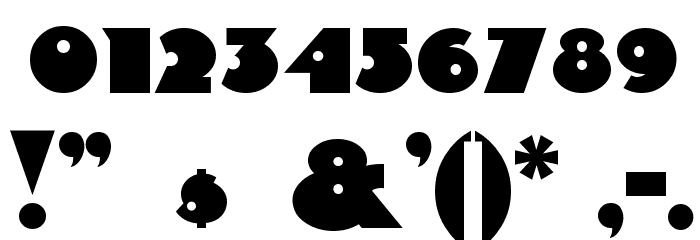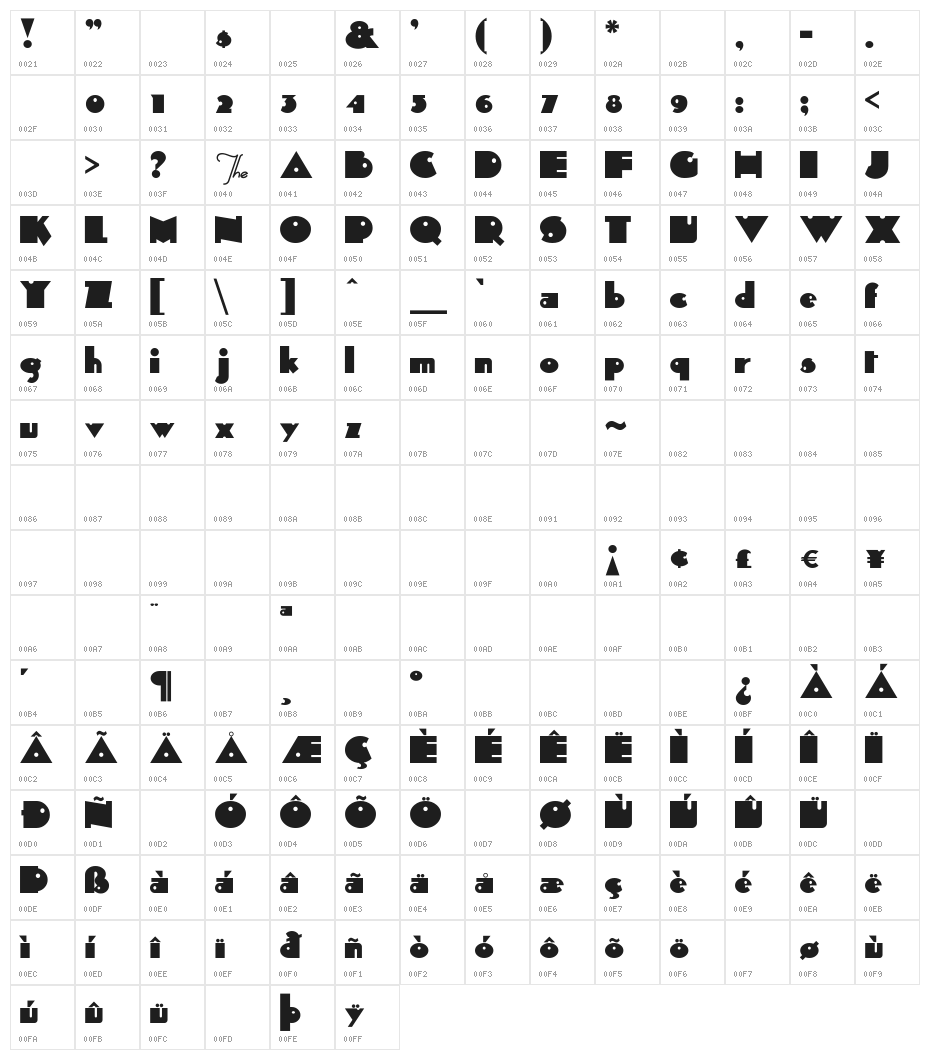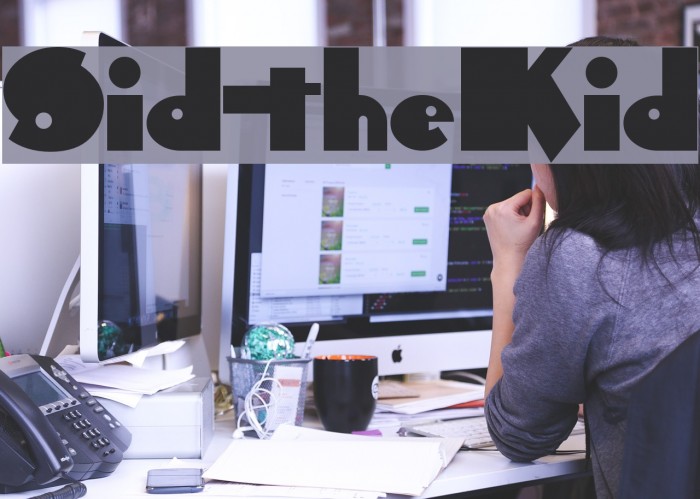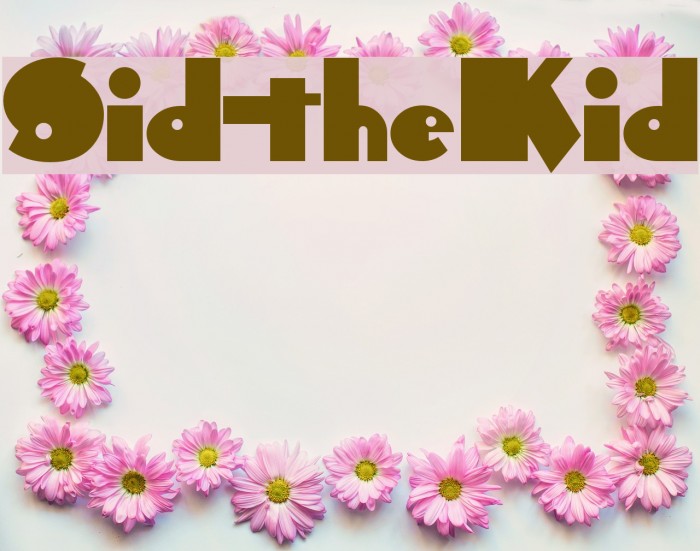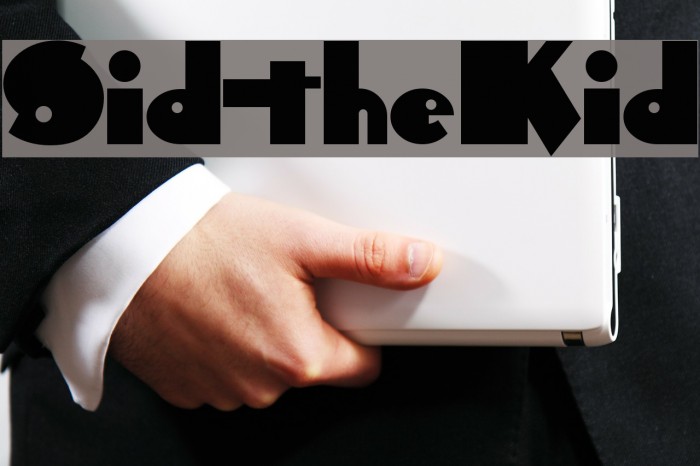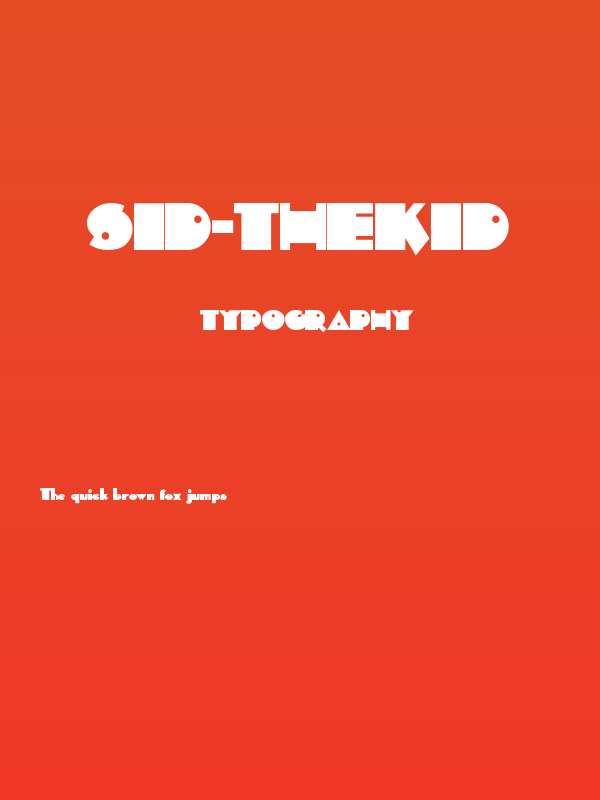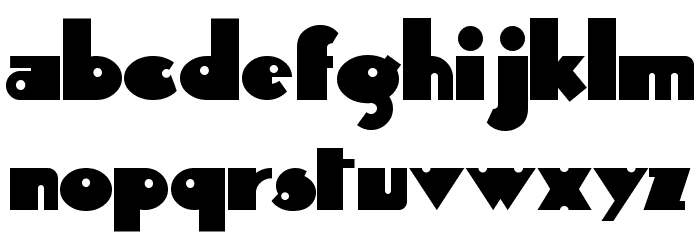
Sid-theKid Font
Sid-theKid Description
This font features bold, geometric shapes with a strong emphasis on angular and circular forms. The uppercase letters are characterized by their solid, block-like appearance, while the lowercase letters maintain a similar weight but with slightly softer curves. The numbers and special characters continue the theme of bold geometry, making them highly visible and impactful. The overall design is striking and modern, with a playful yet assertive aesthetic that commands attention.
| Proposed Projects | Ideal for branding, poster design, and any project requiring a bold, eye-catching typeface. |